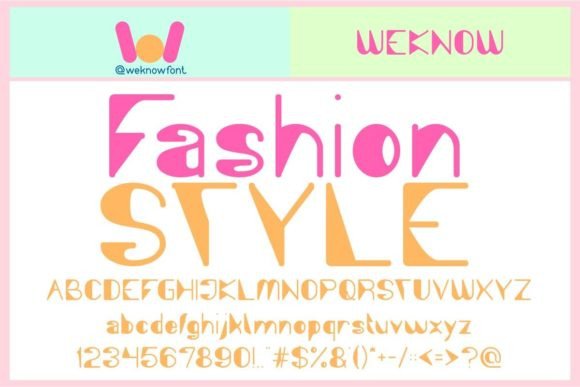
Indulge in the captivating world of Fashion Style Font, where elegance and allure intertwine to create a font that speaks to the hearts of fashion-forward women. This exquisite display font, lovingly crafted by the renowned designers at Weknow, is a symphony of style that transcends the ordinary.
Fashion Style Font emanates an aura of sophistication and grace, perfectly embodying the essence of modern femininity. Its carefully crafted curves and delicate flourishes evoke a sense of timeless beauty, while its unwavering boldness commands attention and inspires confidence. Whether you're designing a captivating logo that will leave an unforgettable impression, crafting eye-catching headlines that demand to be read, or creating a cohesive brand identity that exudes both professionalism and creativity, Fashion Style Font is your ultimate ally.
Step into the world of fashion and design with Fashion Style Font, and witness the transformative power of typography. Let your words dance across the screen, captivating your audience with their undeniable allure. Whether you're a seasoned designer or a creative entrepreneur just starting your journey, Fashion Style Font is the key to unlocking your creative potential and making a statement that resonates with the fashion-conscious world.
Don't settle for ordinary fonts that blend into the background. Embrace the extraordinary with Fashion Style Font, and let your designs become a reflection of your own unique style and vision. Join the league of discerning designers who recognize the transformative power of typography and elevate your creative projects to new heights of sophistication and allure.